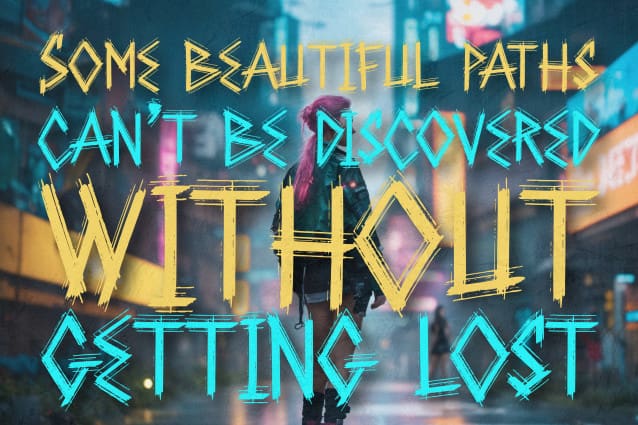
Cybrogpunk Font
Cybrogpunk Font is loud and proud all-caps font was hand-drawn, maintaining the authentic high definition brush detail in each stroke. It’s an exhilarating font choice perfect for header text, poster designs, album covers, product designs, merchandise, logos & more.